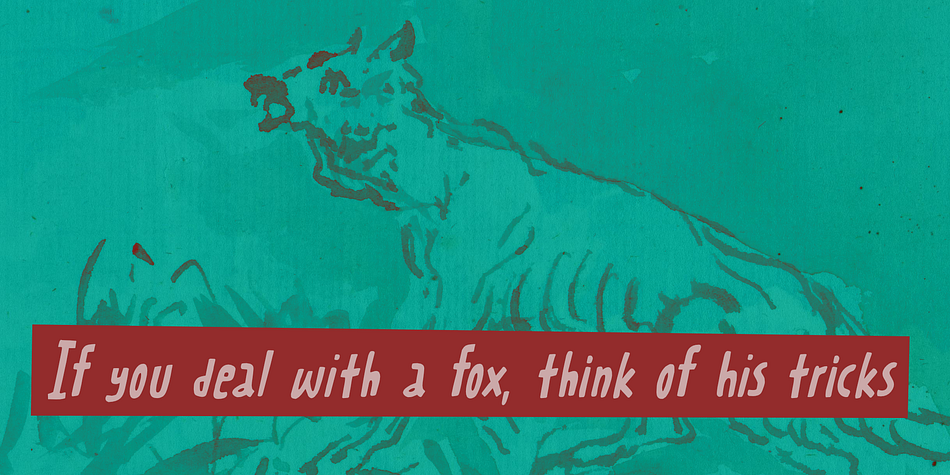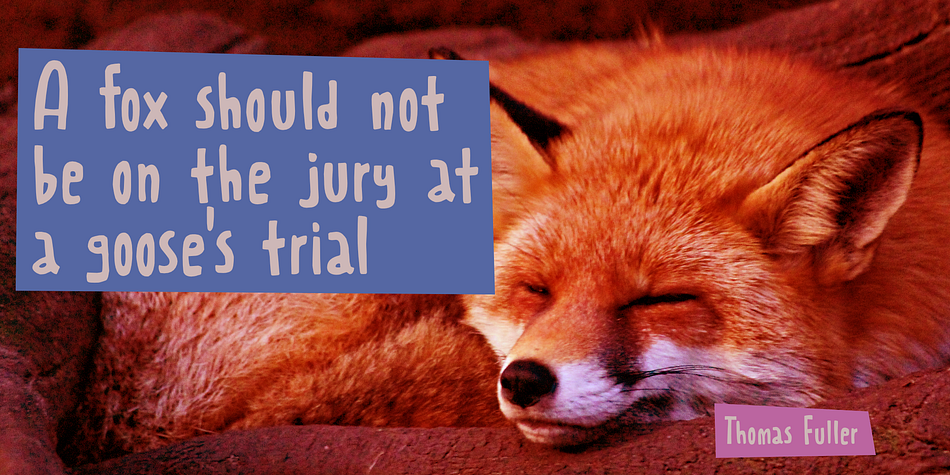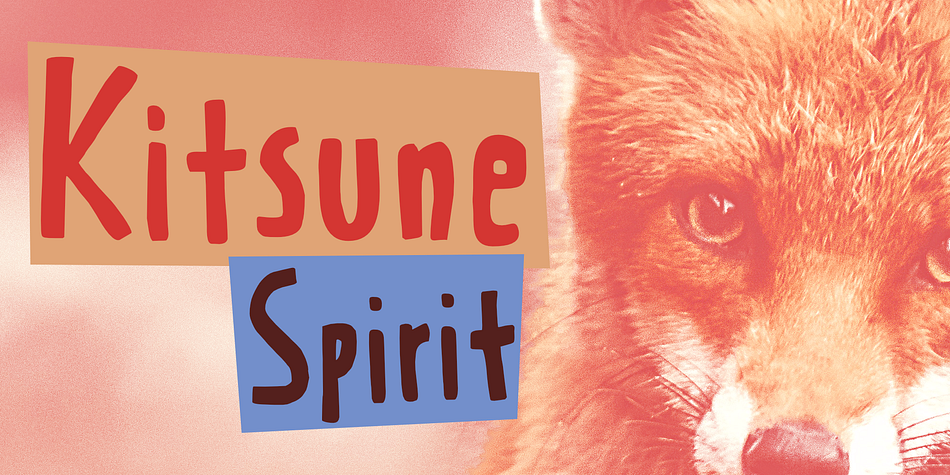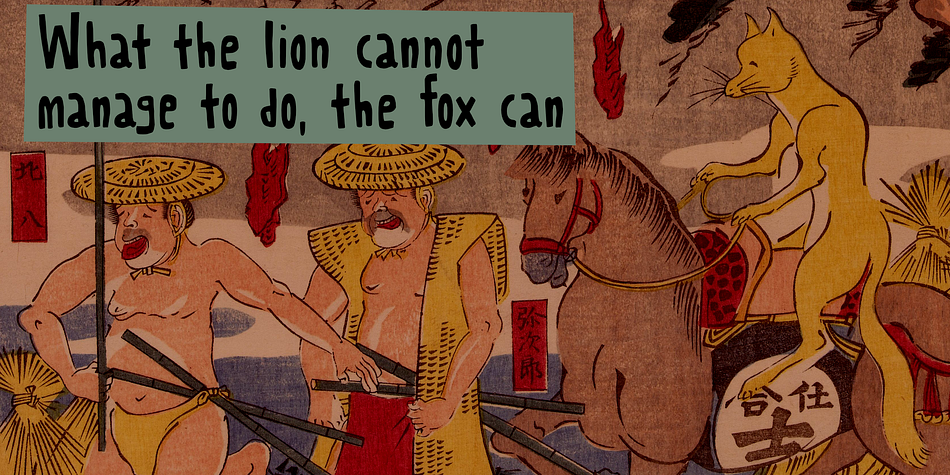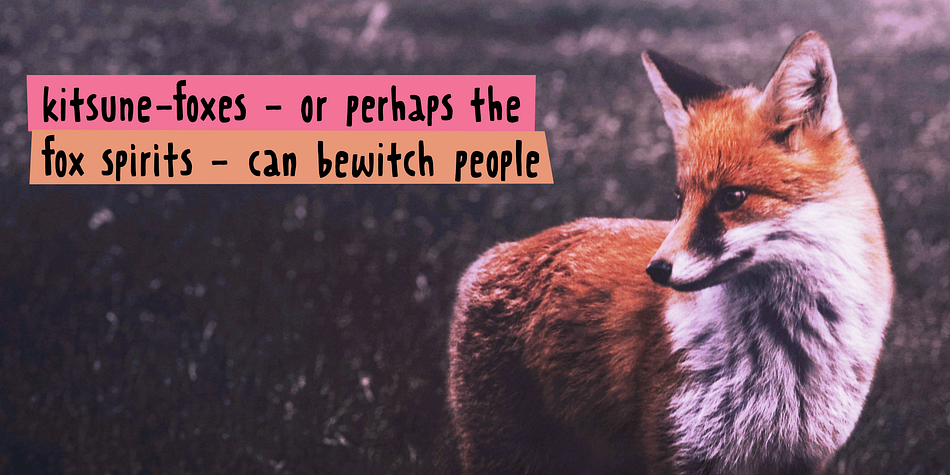
Kitsune Spirit
Designed by David Kerkhoff, Kitsune Spirit is a hand display font family. This typeface has two styles and was published by Hanoded.
Kitsune, in Japanese, means fox. The word is also used for mythological foxes that possess paranormal abilities, which increase as they grow older. Fox spirits can bewitch people and they can shapeshift into human form to fool human beings.
I was reading a book by Yangsze Choo, called The Fox Wife, which I really enjoyed. It deals with a ‘Huli Jing’ - the Chinese version of a Kitsune - so when I finished this particular font, I named it Kitsune Spirit in honour of the book I really enjoyed, and Japan - the country I really like and which I find myself in as I write this!
Kitsune Spirit is a font I made with a pen, by hand. I draws on my earliest work, when I didn’t know a thing about making fonts, but I quite enjoyed creating them! So, you may say that this font is rather rough, a little childish and a little wobbly, but since I had such a great time making it, imagine the delight it will give you when you use it for a project!